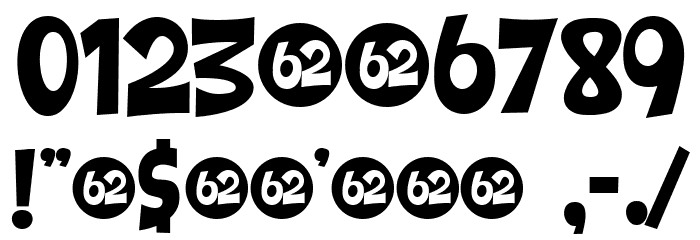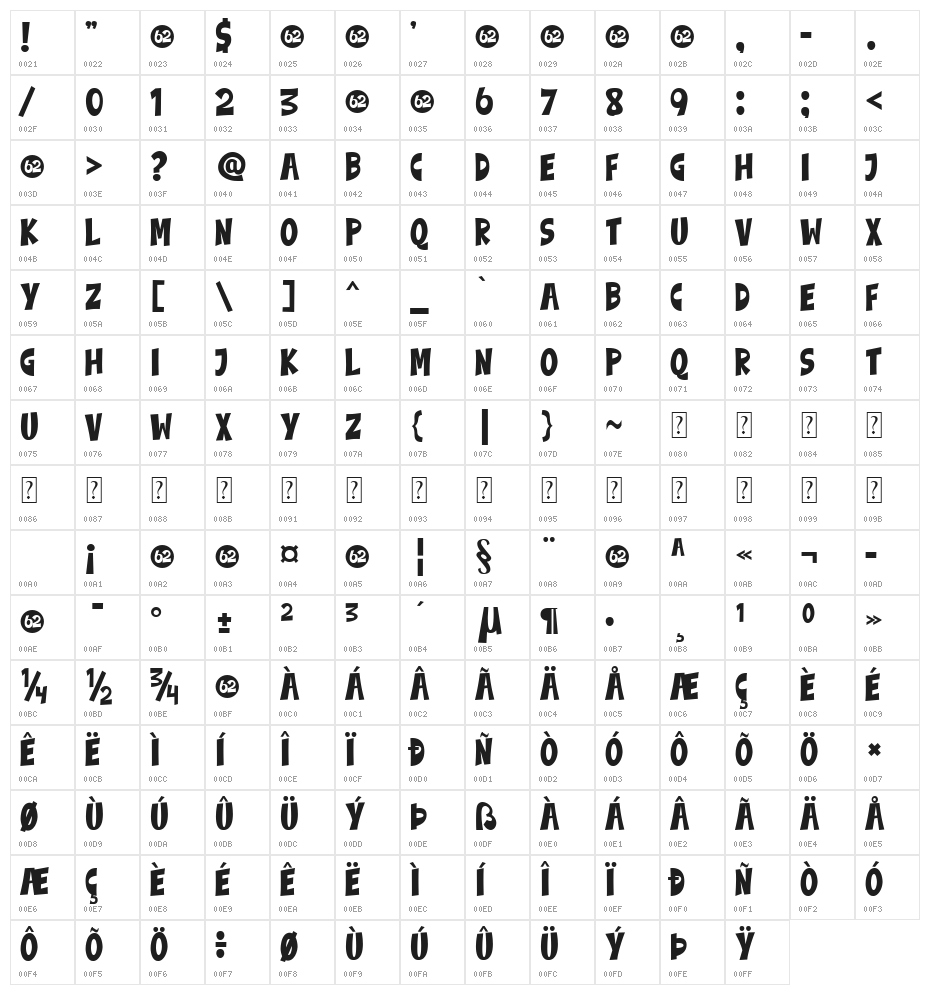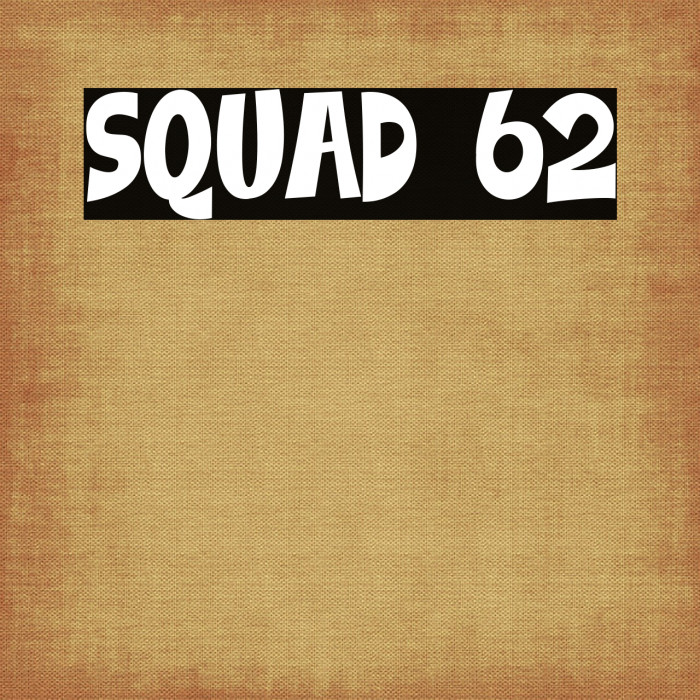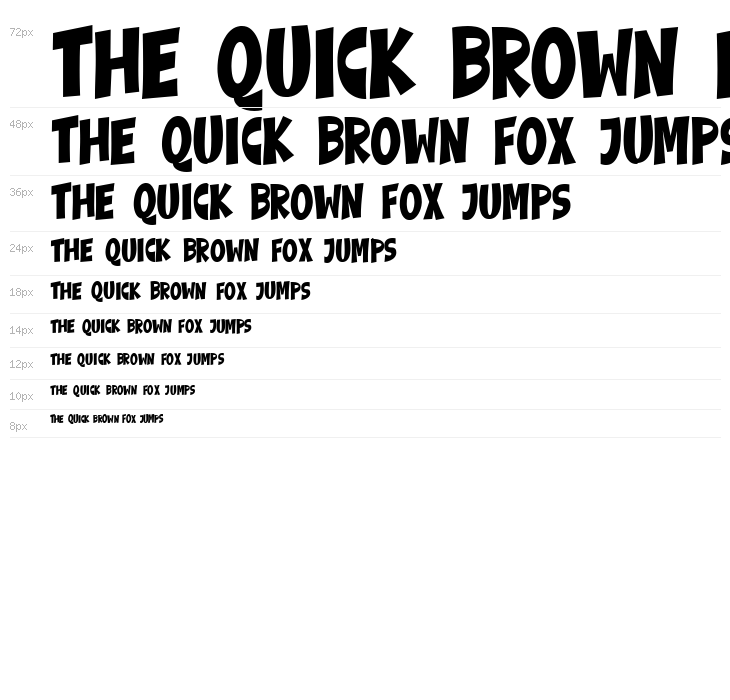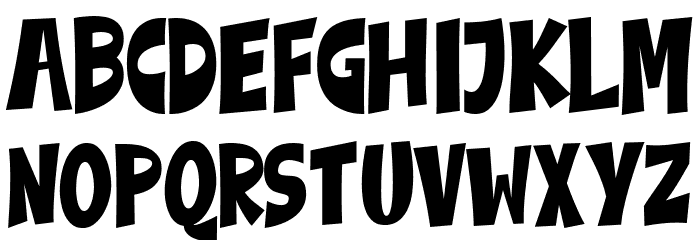
Squad 62 Font
Squad 62 Description
This font exhibits a bold and playful style, characterized by its thick, uneven strokes and slightly irregular shapes. The letters have a dynamic, energetic feel, with a slight tilt that adds to their whimsical appearance. The uppercase and lowercase letters maintain a consistent style, with rounded edges and a sense of movement. The numbers are equally bold and maintain the playful aesthetic, making them stand out. Special characters are designed to match the overall style, ensuring a cohesive look across all glyphs. This font is ideal for projects that require a fun and engaging visual impact.
| Overall Style | Playful, Energetic, Whimsical |
| Use Case | Headlines, Posters, Branding |
| Proposed Projects | Ideal for children's books, playful branding, posters, and creative advertising campaigns. |